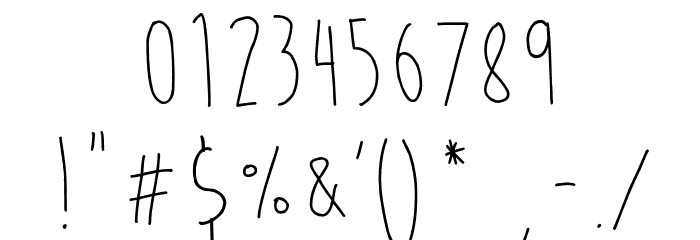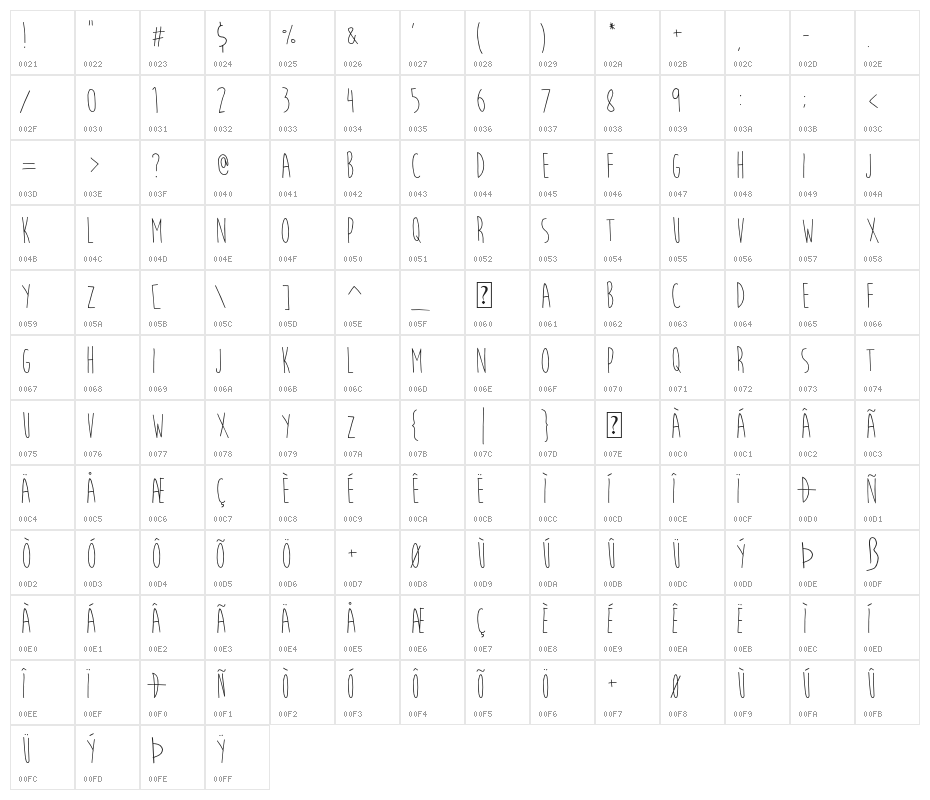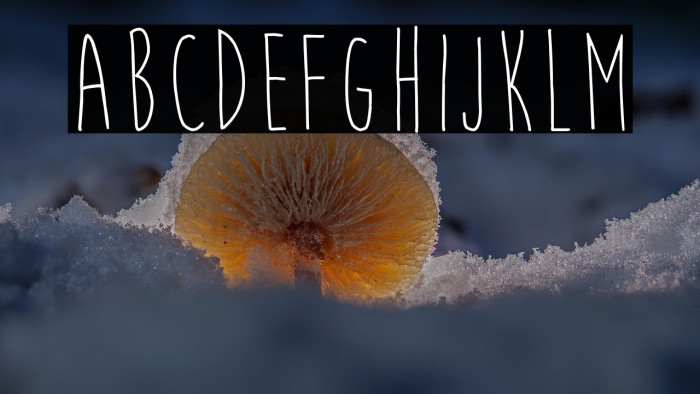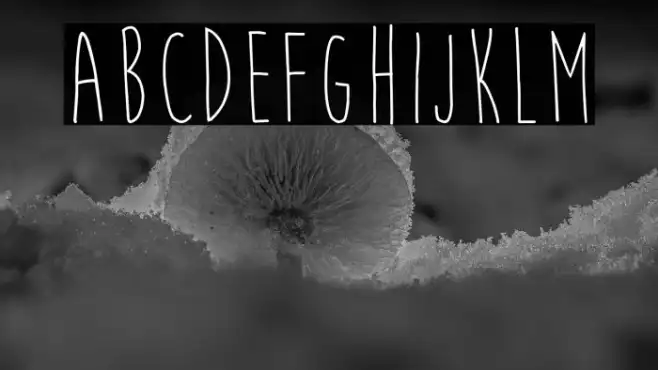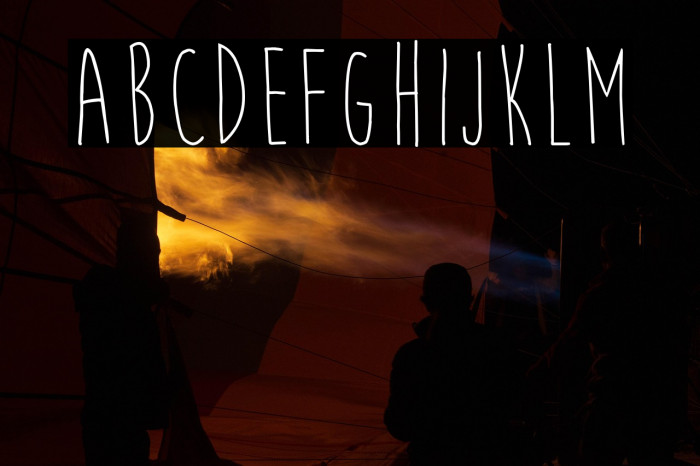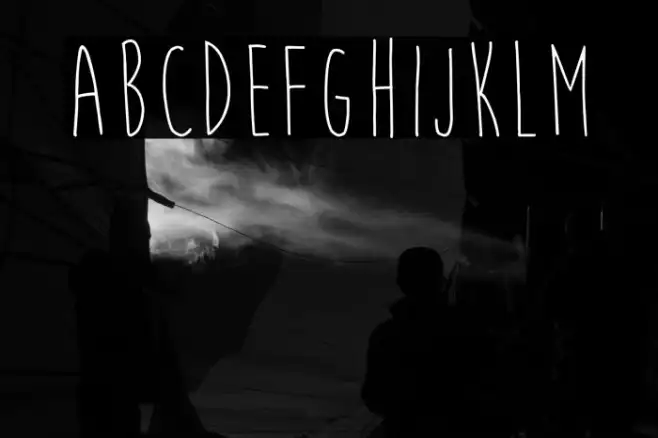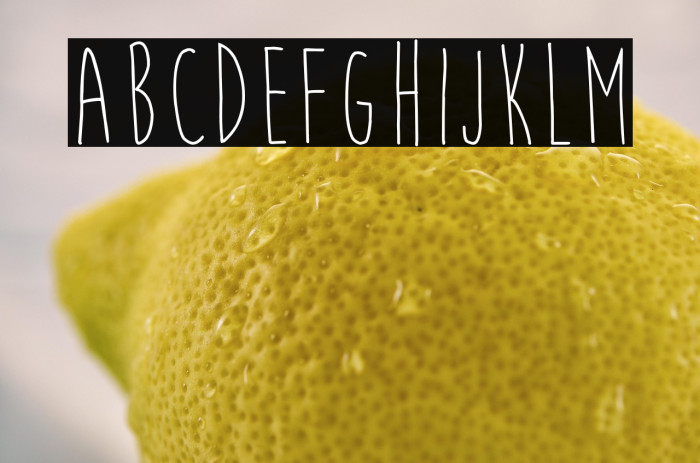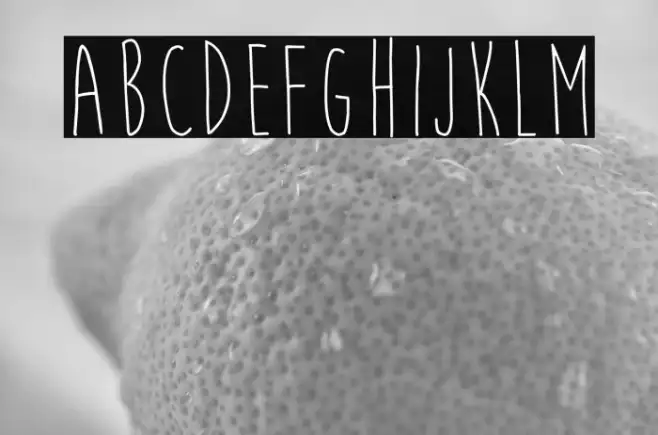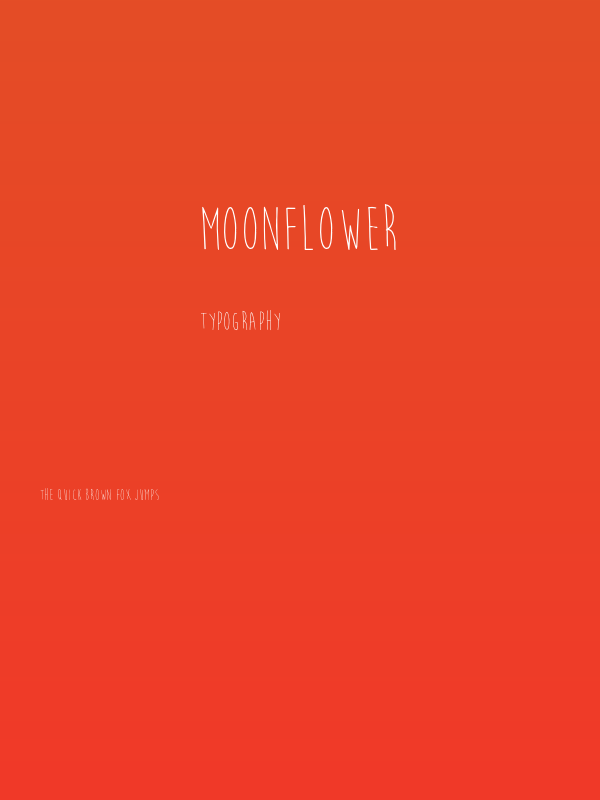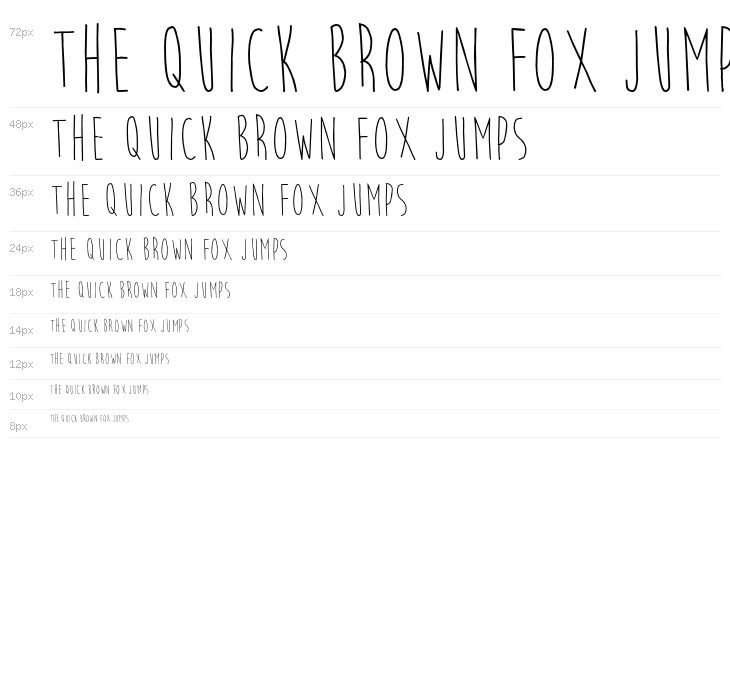
MoonFlower Font
MoonFlower Description
This font features a whimsical and playful handwritten style, characterized by its tall, narrow letters and slightly irregular strokes. The uppercase and lowercase letters maintain a consistent height, giving it a uniform appearance. The numbers and special characters are designed with the same playful touch, making them blend seamlessly with the alphabet. The strokes are thin, with a low contrast between thick and thin lines, contributing to its light and airy feel. This font exudes a casual, friendly vibe, perfect for projects that require a personal touch.
Overall StylePlayful
Use CaseLogos, Invitations, Greeting Cards
Proposed ProjectsIdeal for greeting cards, children's books, playful branding, and casual invitations.